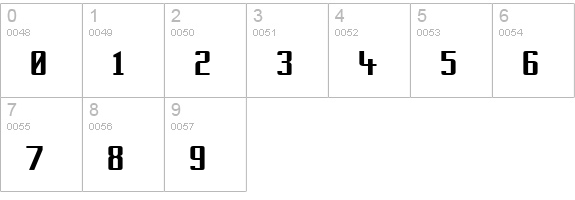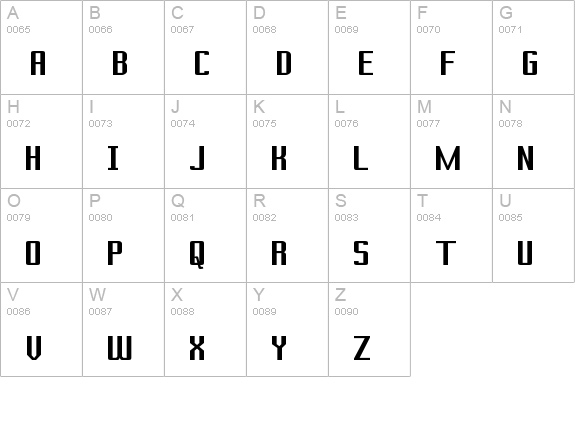
Prussian Brew Solid Font Details
Prussian Brew Solid font exudes a sense of timeless elegance and sophistication. With its bold and sturdy appearance, this typeface commands attention and makes a statement wherever it is used. The sharp, clean lines of each letter give a modern twist to a classic design, making it perfect for projects that require a blend of tradition and contemporary style. What sets Prussian Brew Solid font apart is not only its striking aesthetics but also its versatility. Whether you're looking to create eye-catching headlines, stylish logos, or impactful posters, this font delivers with its strong presence and distinct character. Best of all, Prussian Brew Solid font is free to download at FontsMarket.com, allowing you to access this exceptional typeface without any cost. Don't miss out on the opportunity to enhance your design projects with the bold and impactful Prussian Brew Solid font today.